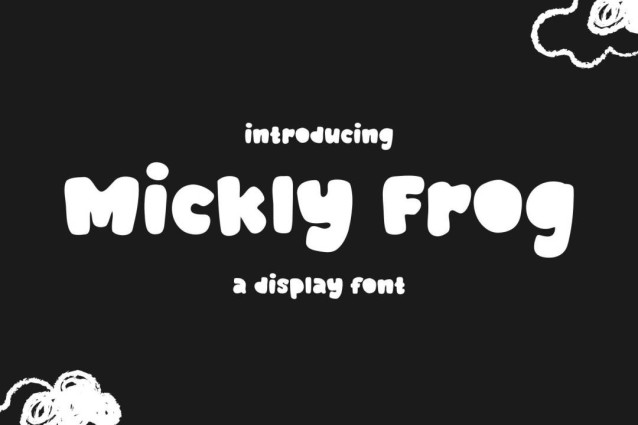
Mickly Frog Font
Mickly Frog Font is a chunky, comic, and cartoon display font. With its neat and joyful personality, this font will enhance any project you wish to create!